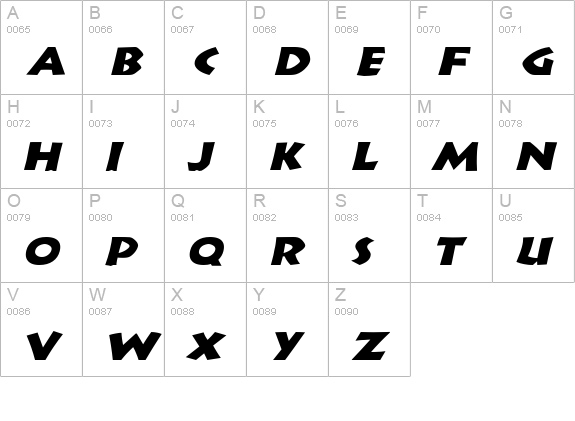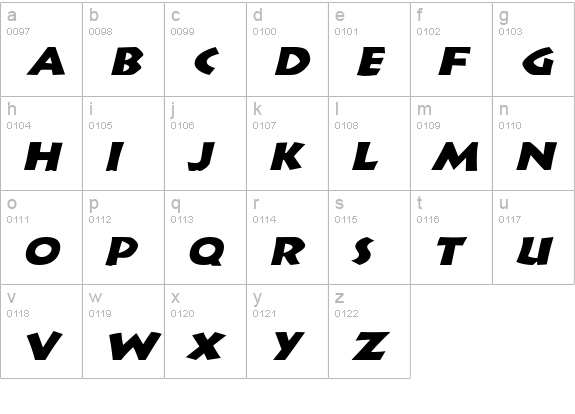
Indy Wide Italic Font Details
Indy Wide Italic is a distinctive, extended-width, italic variant in the Indy typeface family \xE2\x80\x94 well suited to design and typography projects.
Indy Wide Italic is a bold and dynamic font that exudes a sense of adventurous spirit and daring creativity. Its sleek and slanted design adds a touch of modernity and sophistication to any project, making it perfect for eye-catching headlines, titles, and branding materials. With its wide stance and italicized letterforms, Indy Wide Italic commands attention and demands to be noticed. Each character is meticulously crafted with precision and finesse, ensuring legibility and readability even at smaller sizes. This font is not only visually stunning but also versatile in its application. Whether you're working on a poster for a thrilling movie, designing a cutting-edge website, or creating captivating social media graphics, Indy Wide Italic effortlessly adds a bold and captivating touch to any project. As a bonus, Indy Wide Italic is freely available to download at FontsMarket.com, allowing designers and creatives to access this exceptional font without any cost. Its accessibility ensures that everyone can enjoy the beauty and impact of this font, regardless of their budget or resources. Indy Wide Italic is a font that embodies the spirit of adventure, providing a unique and captivating typographic experience. Its bold and daring design, combined with its availability as a free download, make it a must-have for any designer or creative seeking to make a lasting impression.